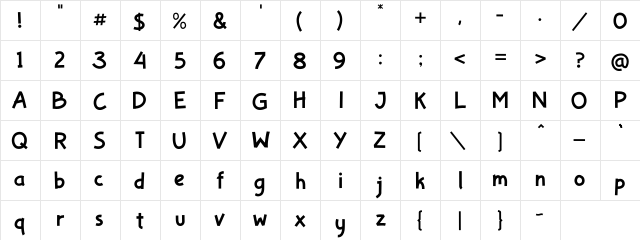
Badaga Regular
Design Context for Badaga Typeface
Badaga offers clean, dependable letterforms without strong stylistic allegiance, making it a practical choice for designers who need flexibility.